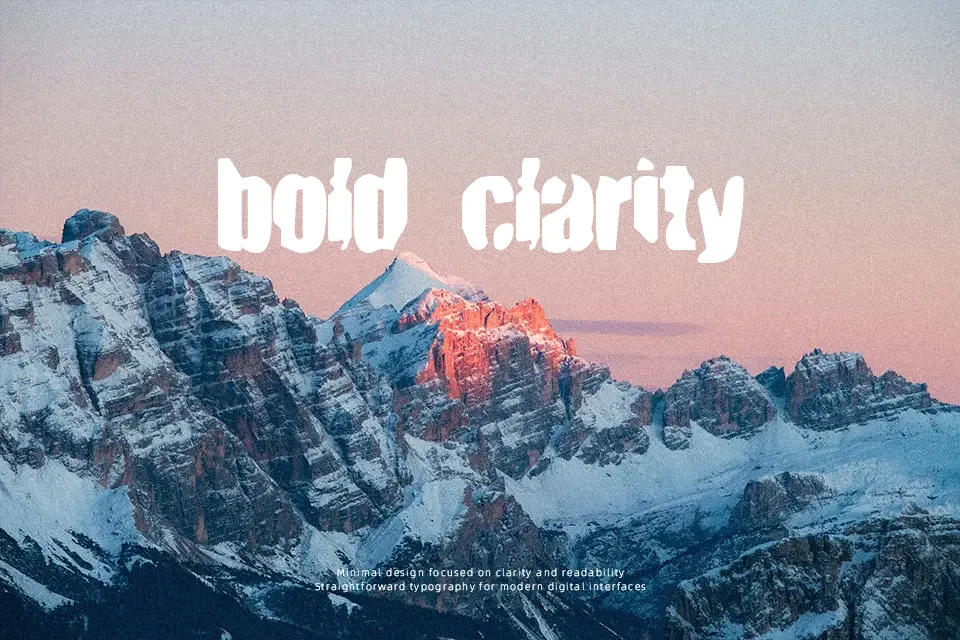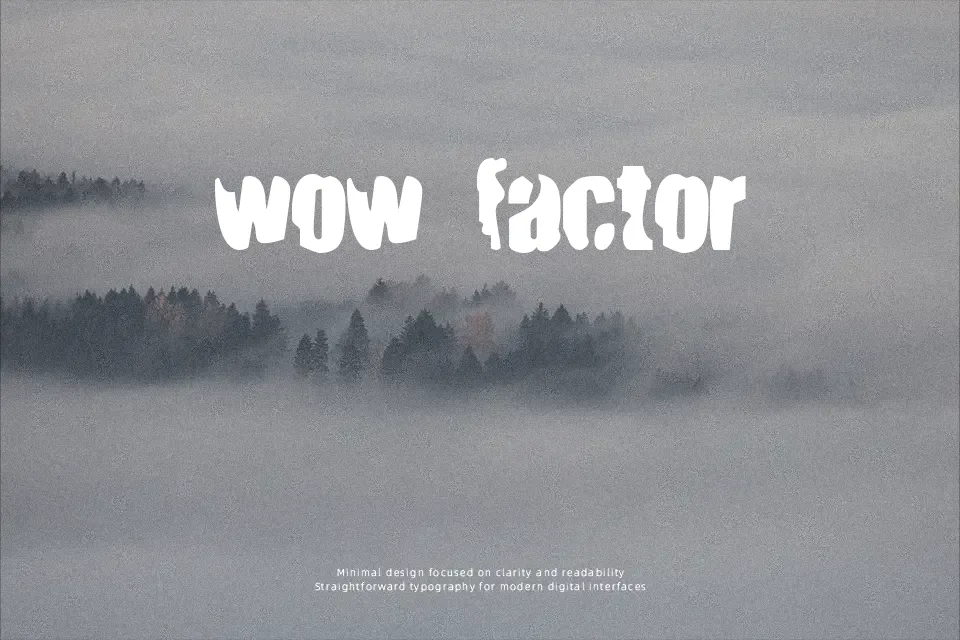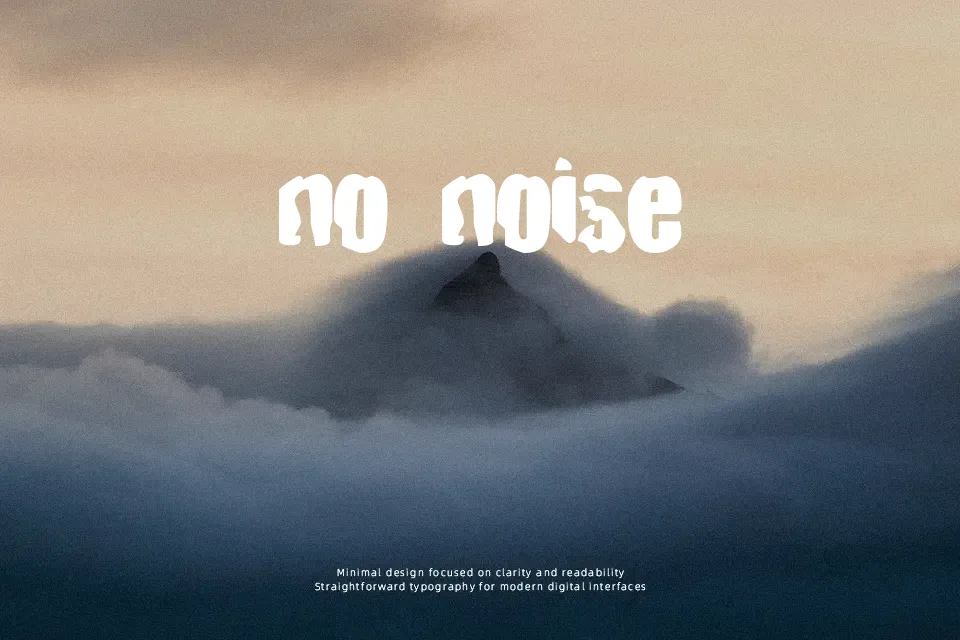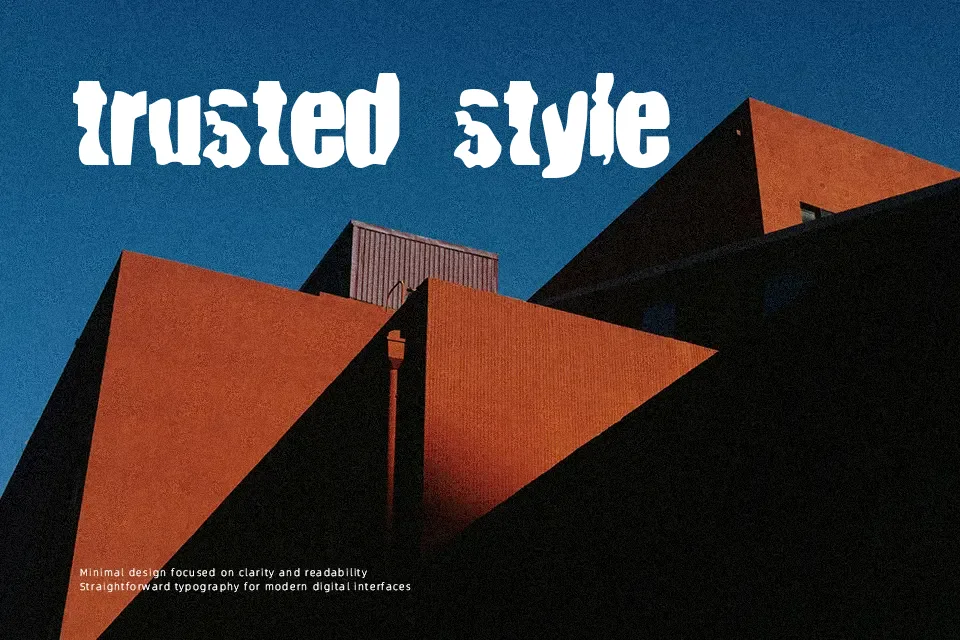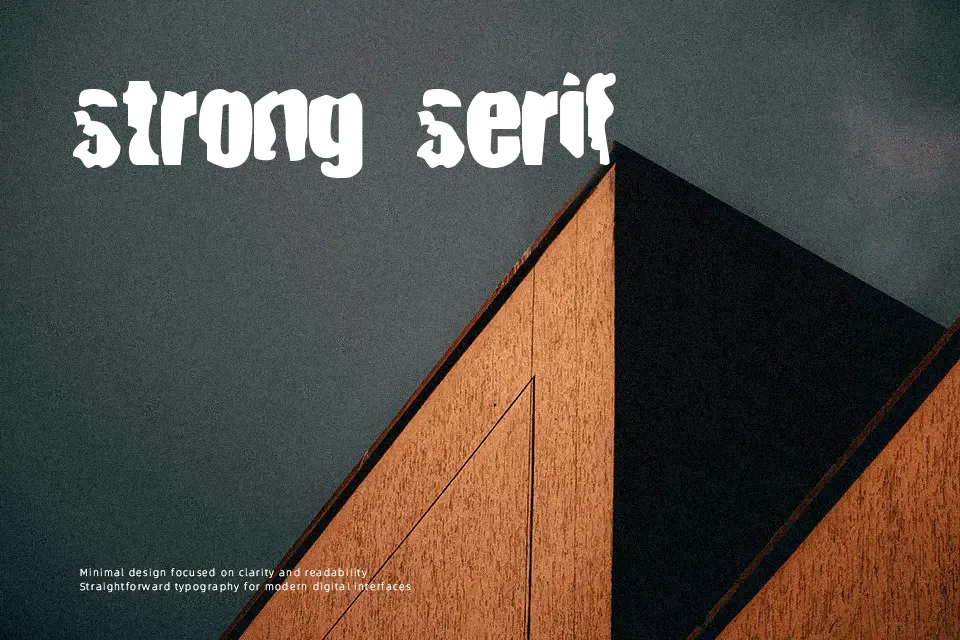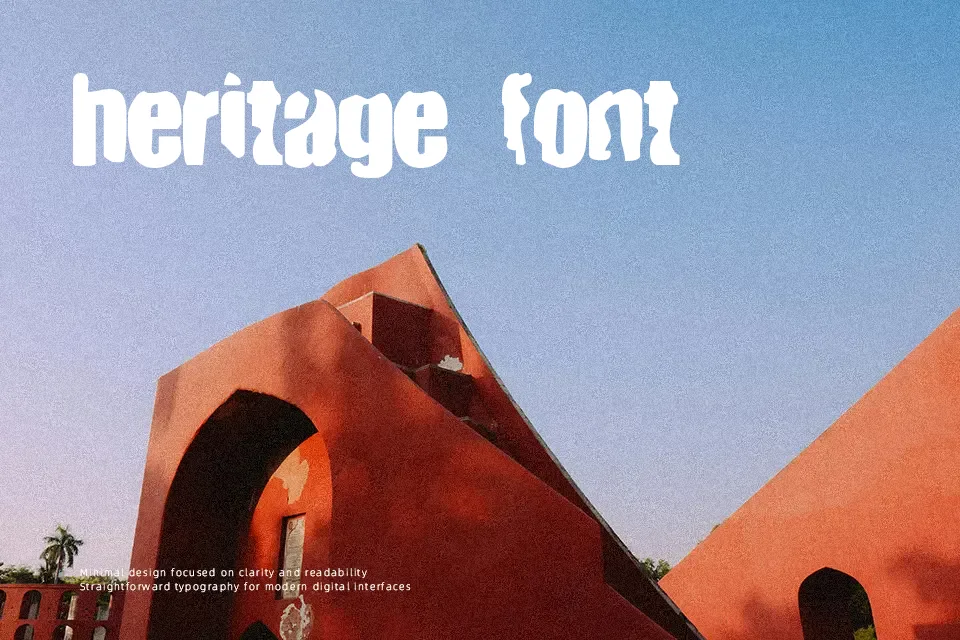
BN Smash Font
Designed by Ben's Fonts
BN Smash delivers an aggressively distressed aesthetic with its heavy, blocky letterforms and irregular, jagged edges. Designed by Ben Nathan, this display typeface features a consistently thick weight that maximizes visual impact while retaining readability at larger sizes. The rugged texture establishes a distinctly unpolished, gritty character.
This font shines when applied to striking poster headlines, alternative music album covers, or extreme sports branding where you need raw, unapologetic energy. Its eroded styling naturally conveys tension and friction. However, BN Smash presents serious legibility issues in small-scale applications or extensive reading materials. The intricate details within its distressed edges easily become muddy, making it completely unsuitable for digital body text or intricate logo marks.
Gritty poster headlines
Extreme sports branding
Heavy music album art
Continuous body paragraphs
Small-scale print materials
Minimalist corporate identities
Perfect for headline, music, and poster, with a bold and decorative style.